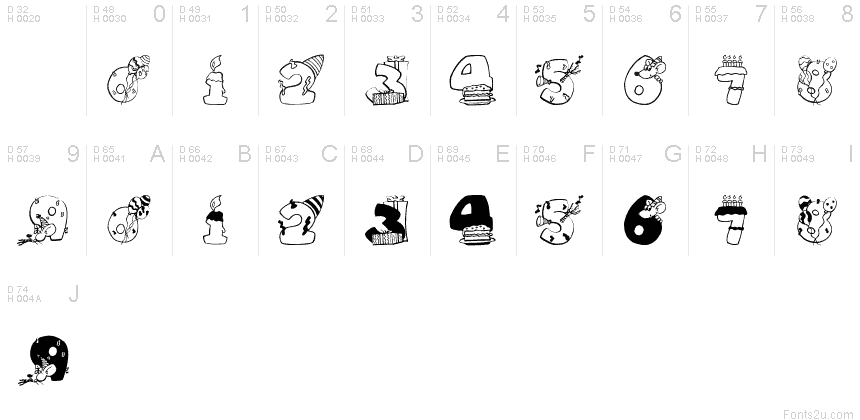
BirthdayDigits
Birthday Digits font by M. Klein is a free decorative dingbat typeface that turns every number into a tiny birthday scene. Each digit is plump and cartoonish, stuffed with candles, cakes, party hats, balloons, and wrapped gifts, giving your layouts a hand‑drawn, celebratory feel. The chunky black-and-white illustrations print crisply and still look playful on screen, so they hold up whether you’re going huge or keeping things small.
Using Birthday Digits font instantly adds “party mode” to kids’ invitations, birthday cards, posters, banners, stickers, and social media countdowns. This free font shines when you set the numbers large and let the doodles breathe, then pair it with a simple rounded sans serif for names and details to keep everything readable and fun.